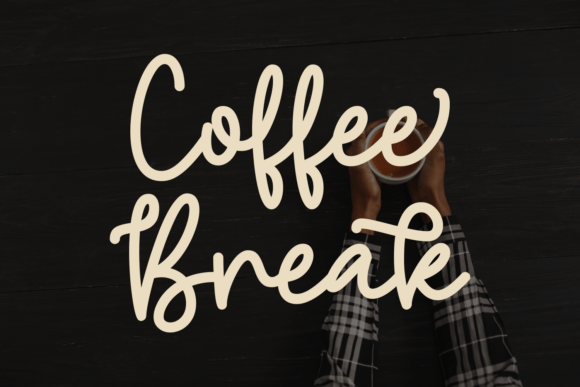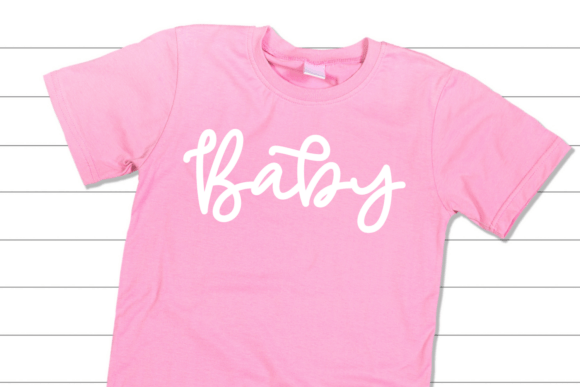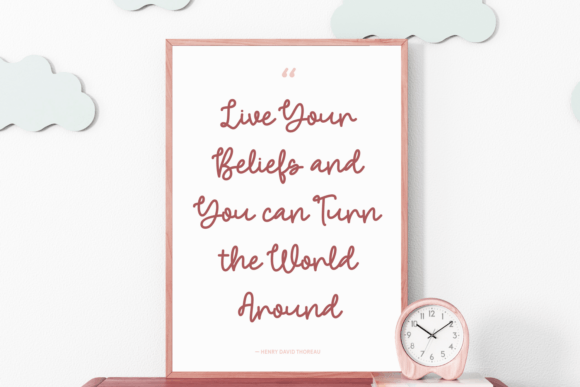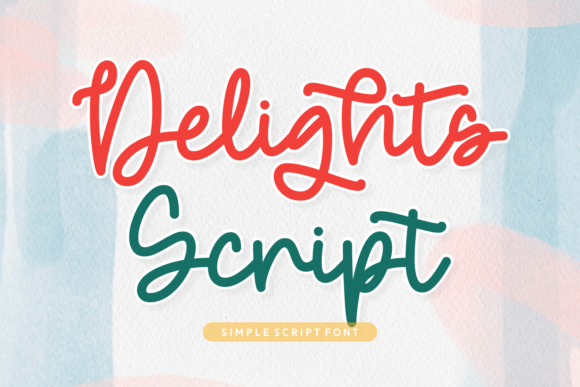
Introducing Delights Script Font: The Perfect Handwritten Touch for Your Designs
Are you looking for a font that adds a personal touch to your designs? Do you want to create a warm and inviting feel that resonates with your audience? Look no further than Delights Script Font, a charming handwritten font that is sure to delight. In this article, we’ll dive into the features and benefits of Delights Script, and explore how it can elevate your designs to the next level.
A Friendly and Playful Style
Delights Script Font is a beautiful, handwritten font that looks like it was written with a smooth pen. Its friendly and playful style makes it perfect for personal notes, invitations, or anything that needs a warm, casual touch. The letters flow together nicely, giving your text a cozy and inviting feel that’s sure to capture the hearts of your audience.
Whether you’re a designer, crafter, or DIY enthusiast, Delights Script Font is a versatile font that can be used in a variety of projects. From handmade cards and invitations to social media graphics and blog posts, this font is sure to add a personal touch to your creations. Its playful style makes it perfect for:
- Handmade cards and invitations
- Social media graphics and quotes
- Blog posts and articles
- DIY projects and crafts
Key Features of Delights Script Font
So, what makes Delights Script Font so special? Here are some of its key features:
- Handwritten style: Delights Script Font has a beautiful, handwritten style that looks like it was written with a smooth pen.
- Playful and friendly: The font has a playful and friendly style that’s perfect for personal notes, invitations, and casual designs.
- Flowing letters: The letters flow together nicely, giving your text a cozy and inviting feel.
- Versatile: Delights Script Font can be used in a variety of projects, from handmade cards to social media graphics.
Tips for Using Delights Script Font
Here are some tips for using Delights Script Font in your designs:
- Pair with a sans-serif font: Pair Delights Script Font with a sans-serif font for a modern and playful contrast.
- Use for headings and titles: Use Delights Script Font for headings and titles to add a personal touch to your designs.
- Experiment with colors: Experiment with different colors and textures to add depth and interest to your designs.
- Keep it simple: Keep your design simple and clean to let the font shine.
In conclusion, Delights Script Font is a charming handwritten font that’s perfect for designers and crafters looking to add a personal touch to their designs. Its friendly and playful style makes it perfect for personal notes, invitations, and casual designs. With its flowing letters and versatile style, Delights Script Font is sure to elevate your designs to the next level. So why wait? Try Delights Script Font today and see the difference it can make in your designs!